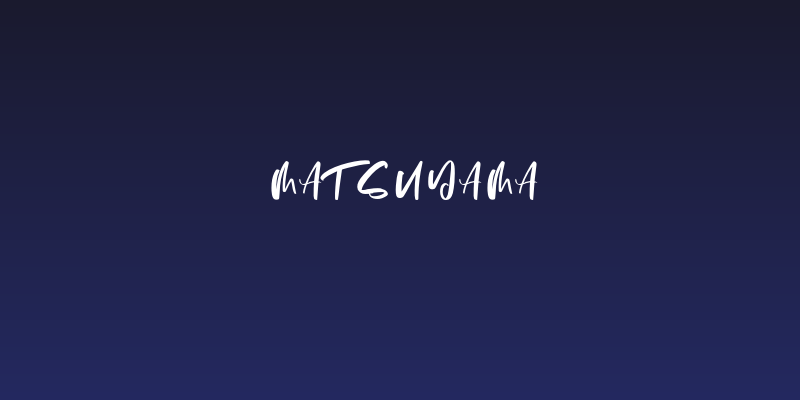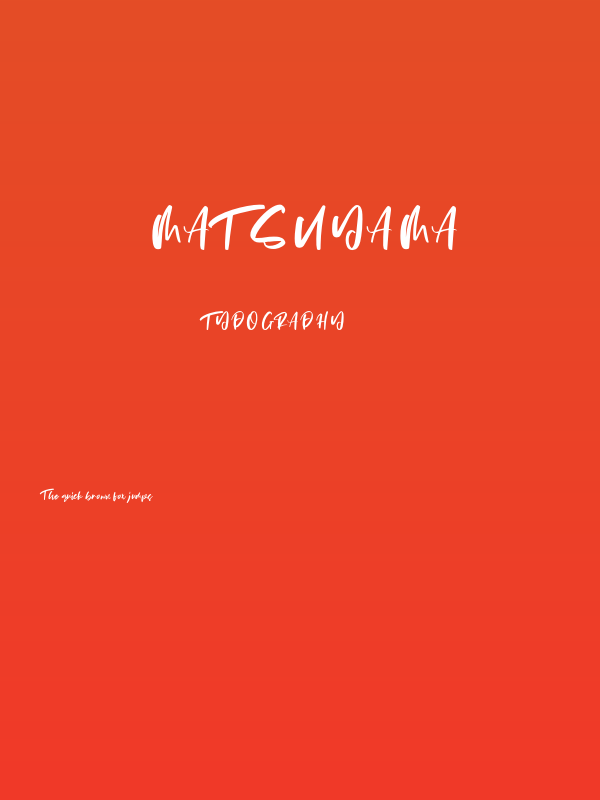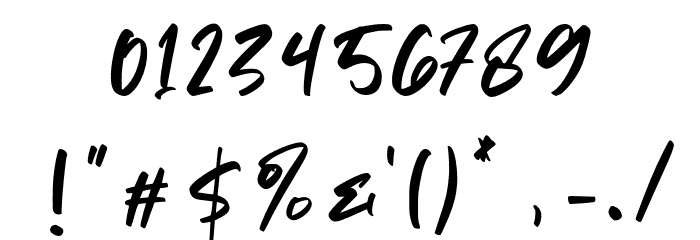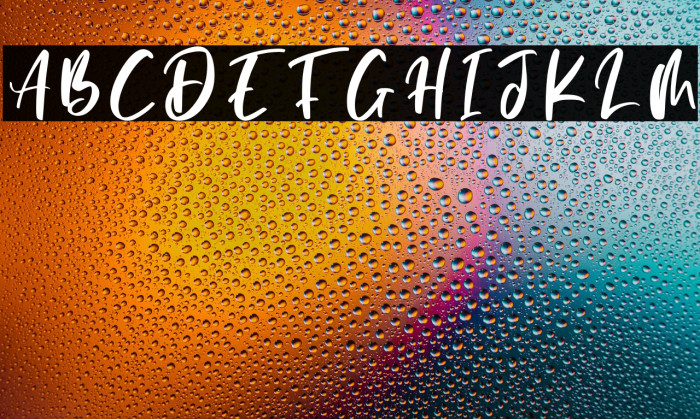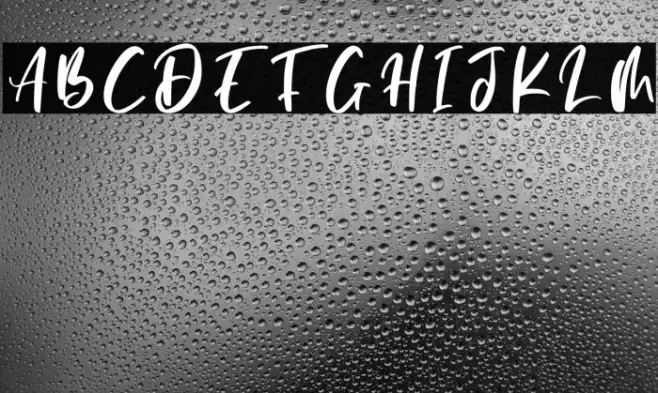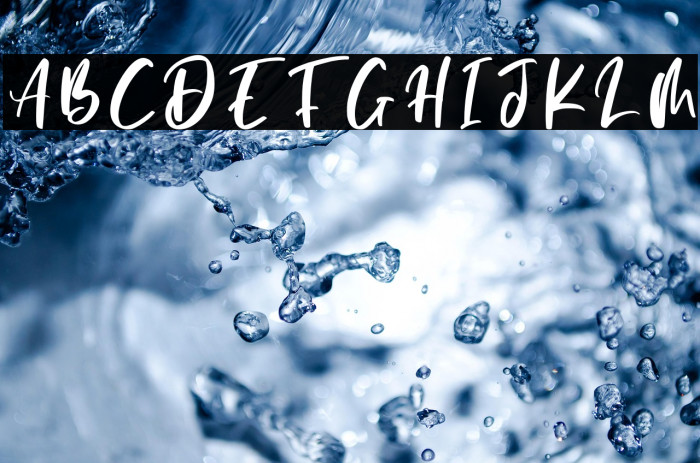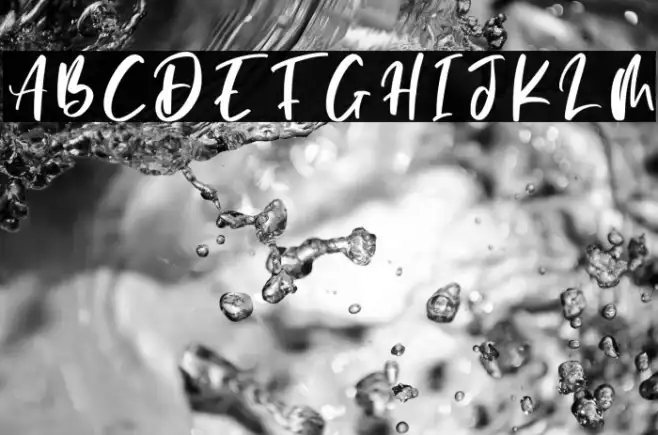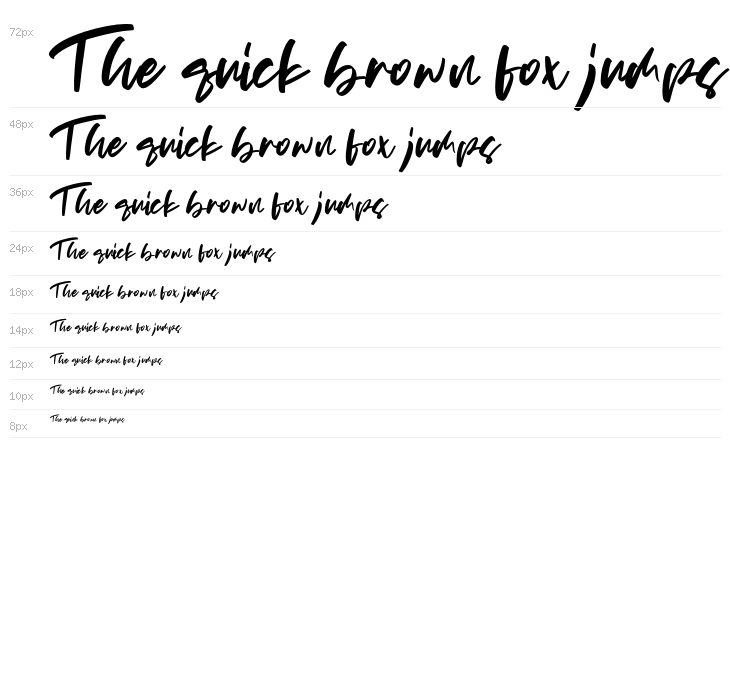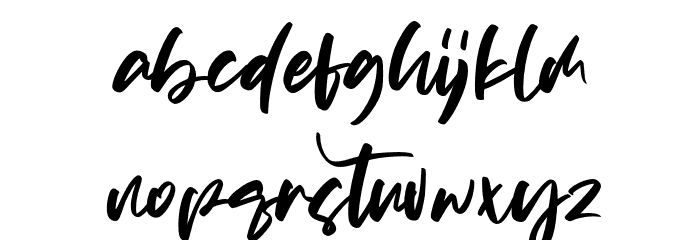
Matsuyama Font
Matsuyama Description
This font exudes a dynamic and expressive style, characterized by its fluid and cursive strokes. The letters are crafted with a sense of movement, giving it a lively and energetic appearance. The uppercase letters are bold and slightly slanted, while the lowercase letters maintain a consistent flow with varying stroke thickness. The numbers and special characters are designed to complement the overall aesthetic, maintaining the same handwritten feel. This font's artistic flair makes it suitable for creative and informal applications, where a personal touch is desired.